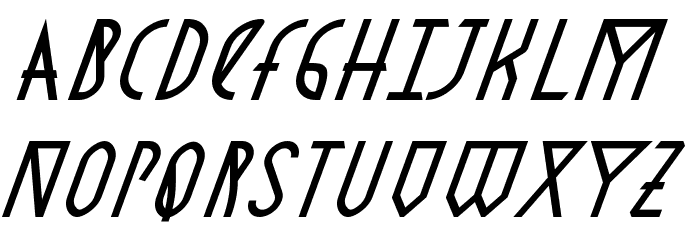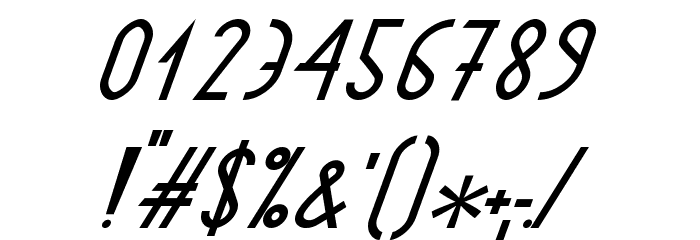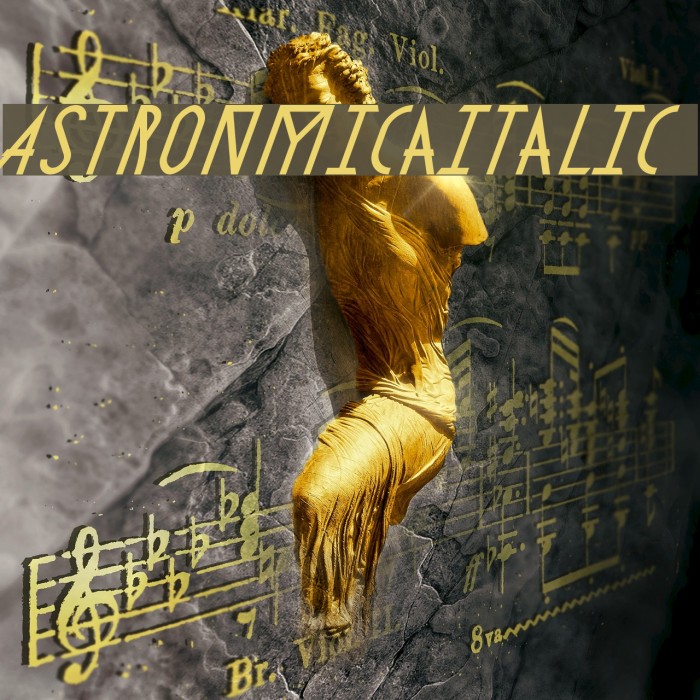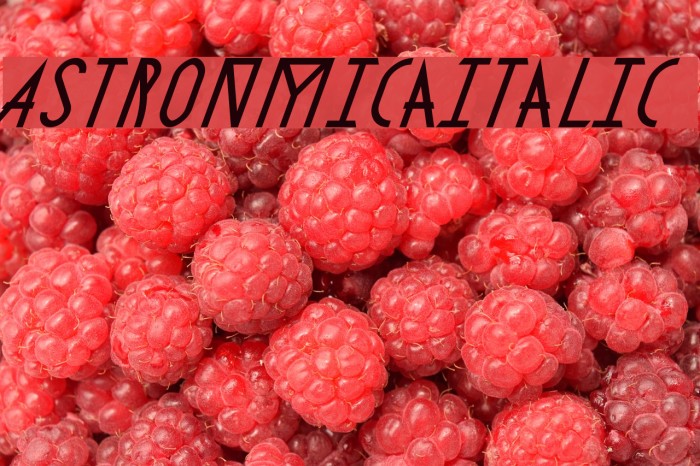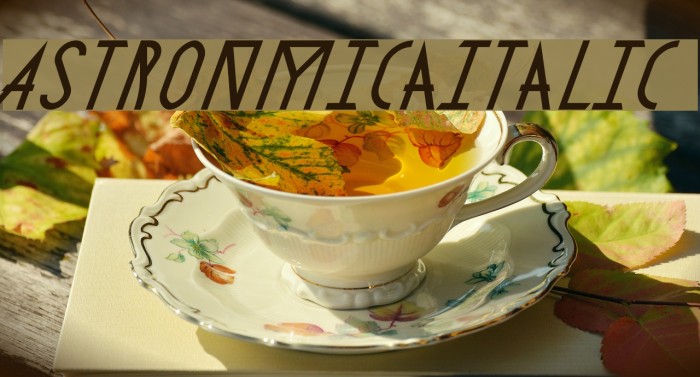
AstronmicaItalic Font
This font exhibits a futuristic and dynamic style with its sharp, angular lines and italicized form. The uppercase and lowercase letters maintain a consistent slant, giving the typeface a sense of motion and speed. The characters are crafted with a geometric precision, featuring pointed edges and a sleek, modern aesthetic. The numbers and special characters follow the same design principles, ensuring uniformity across the entire set. This font's unique style makes it stand out, suitable for projects that require a bold and innovative look.
A futuristic, italicized font with sharp, angular lines and a dynamic style.
- Proposed Projects: Ideal for sci-fi themed designs, technology branding, video game titles, and modern advertising.